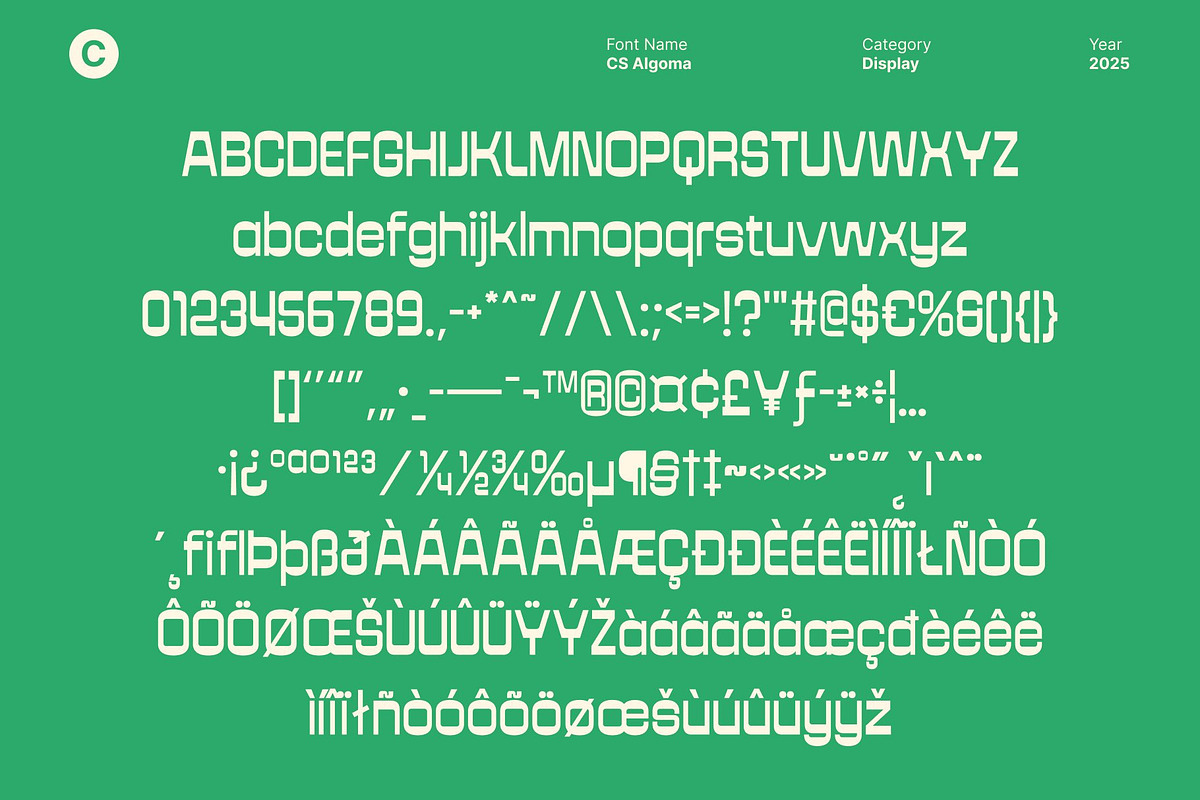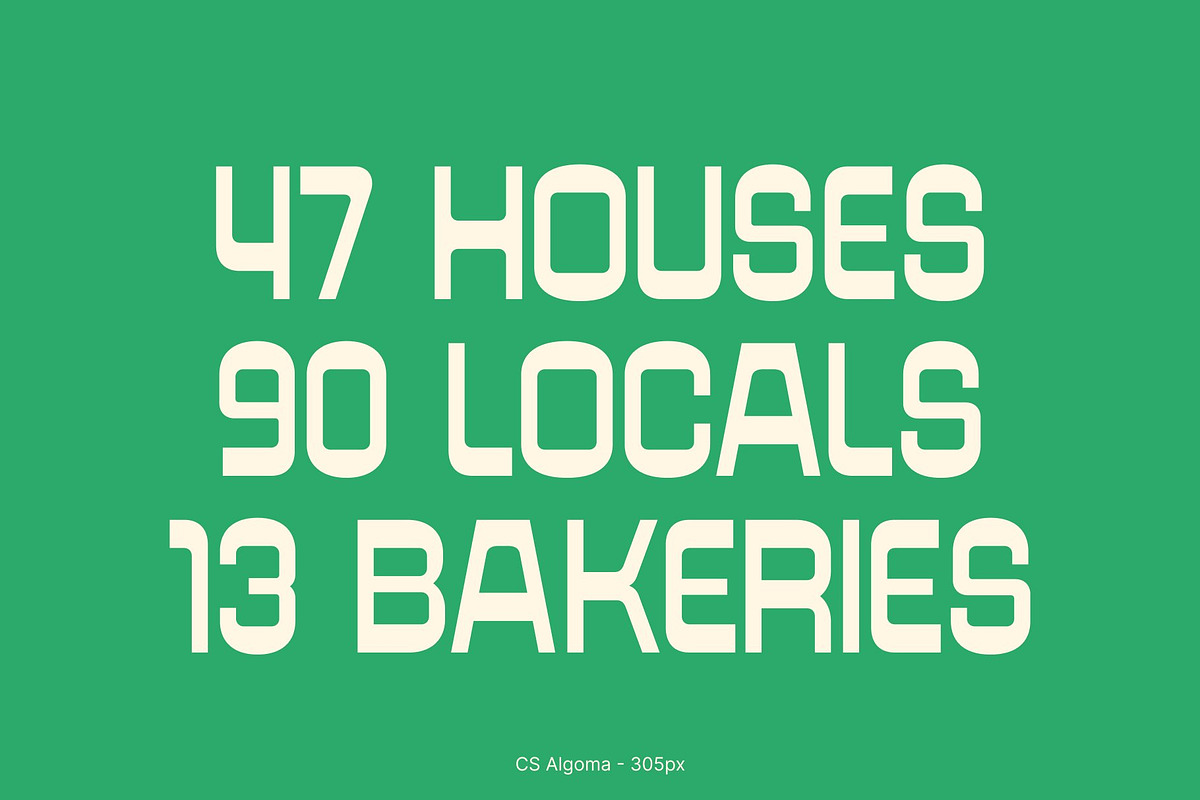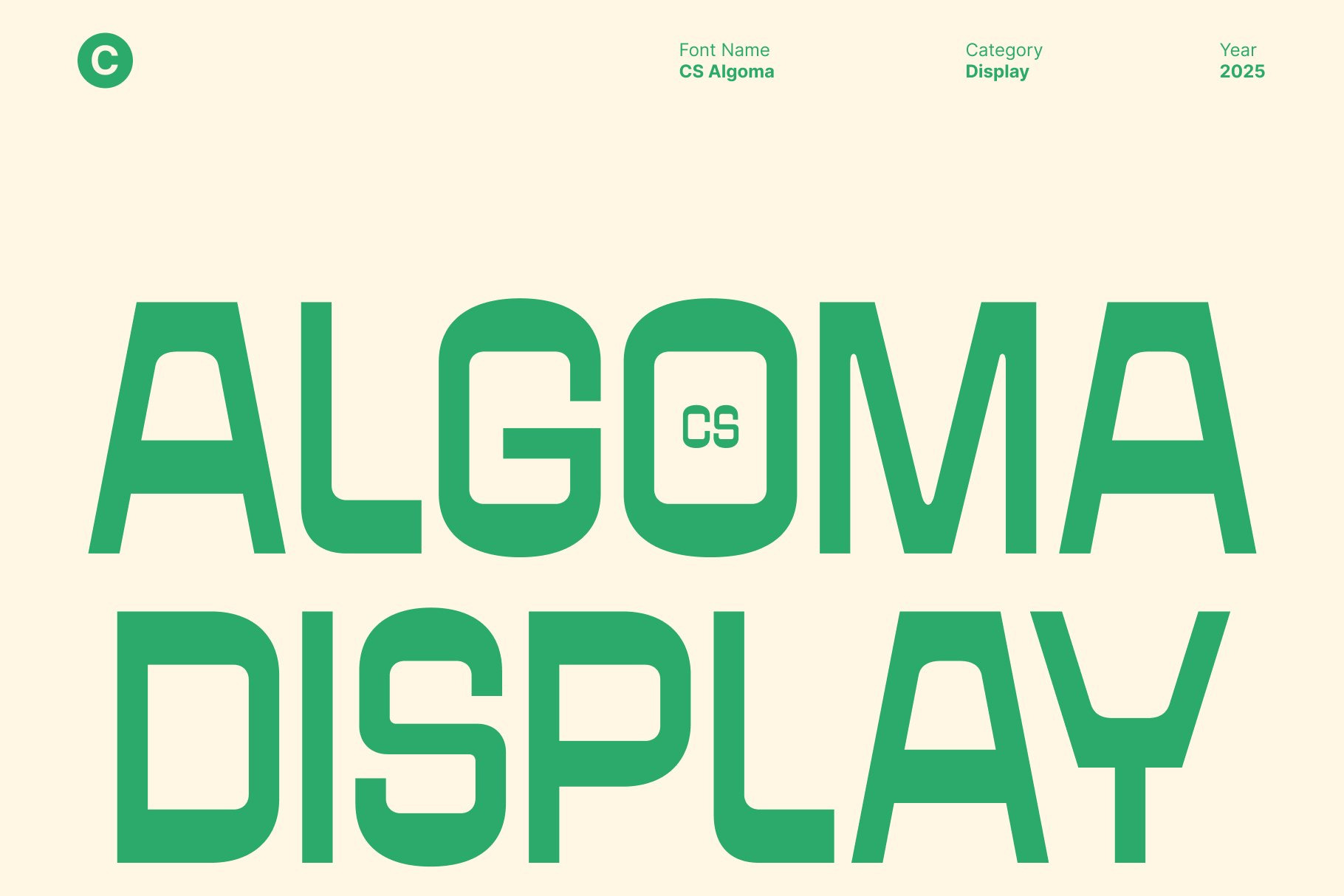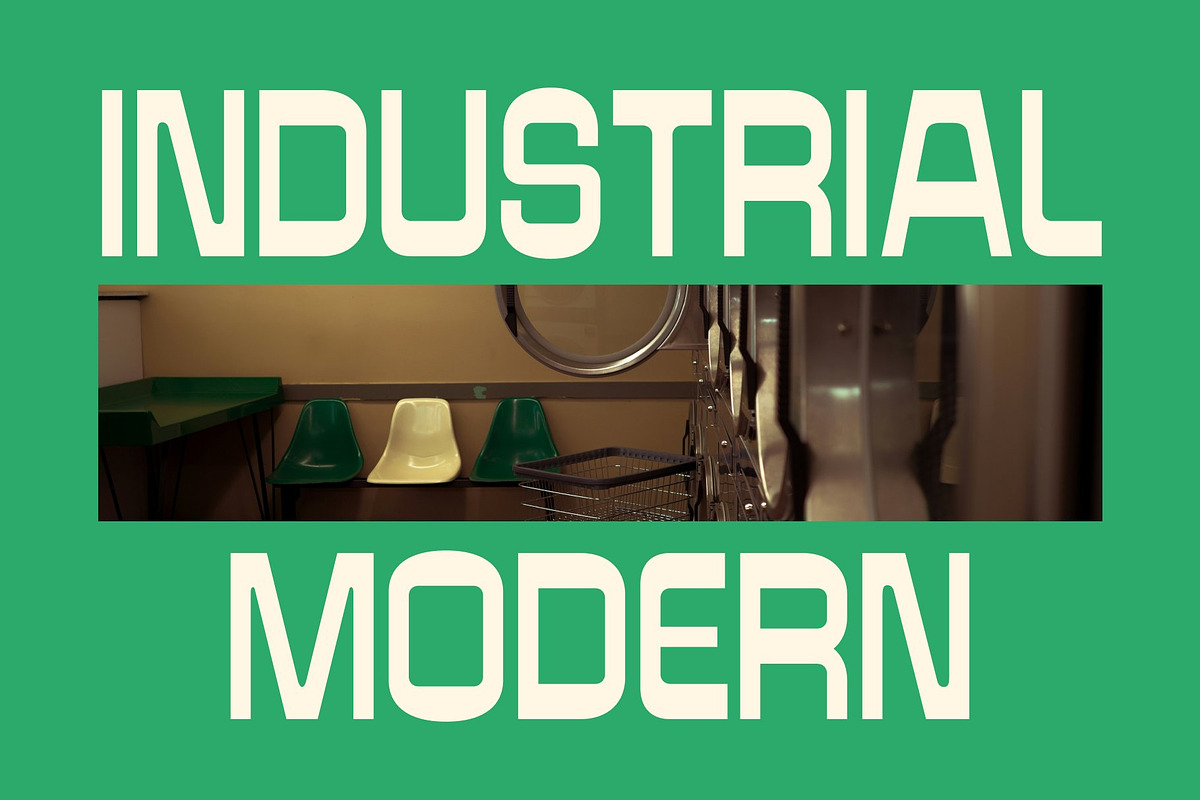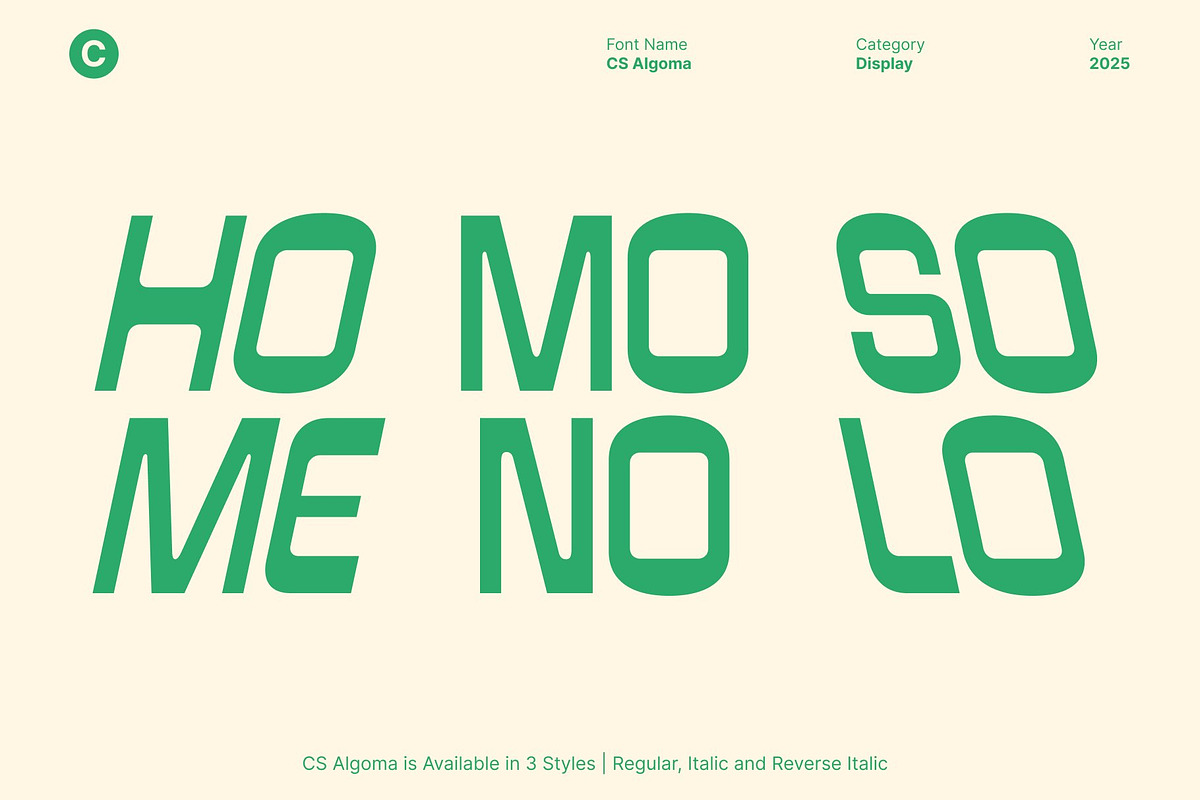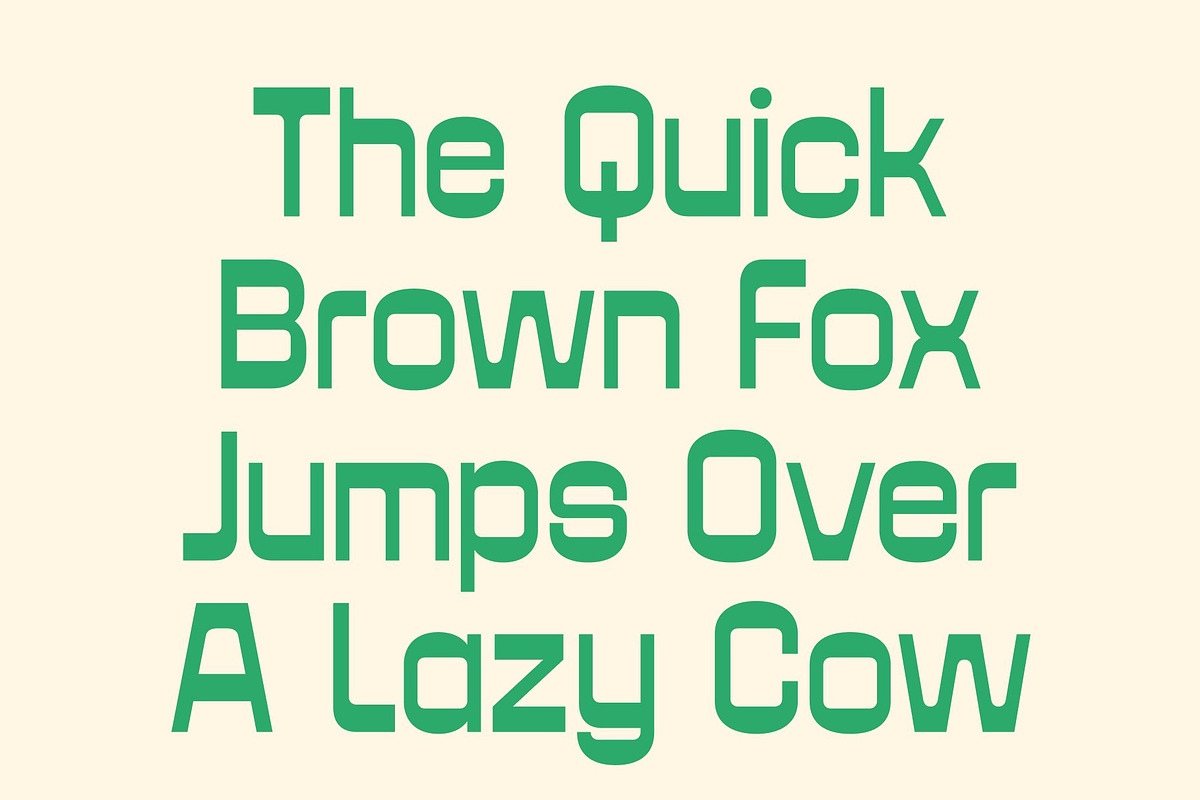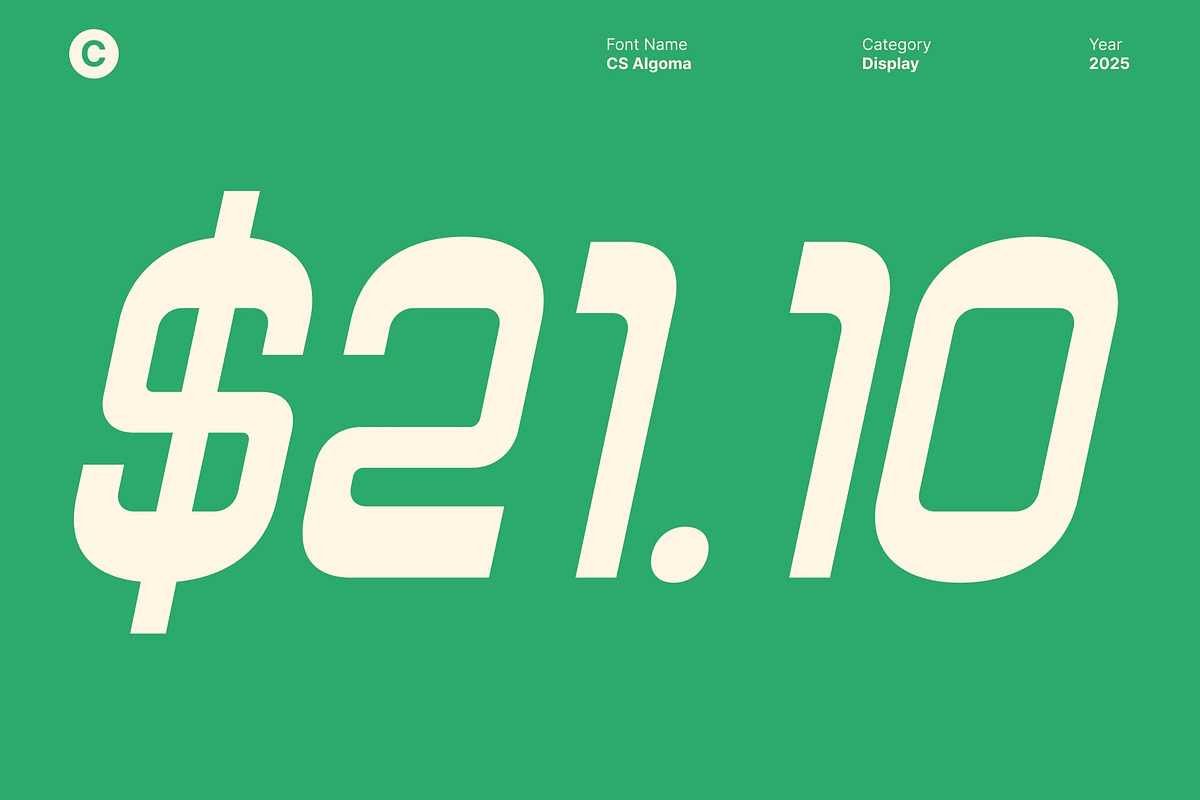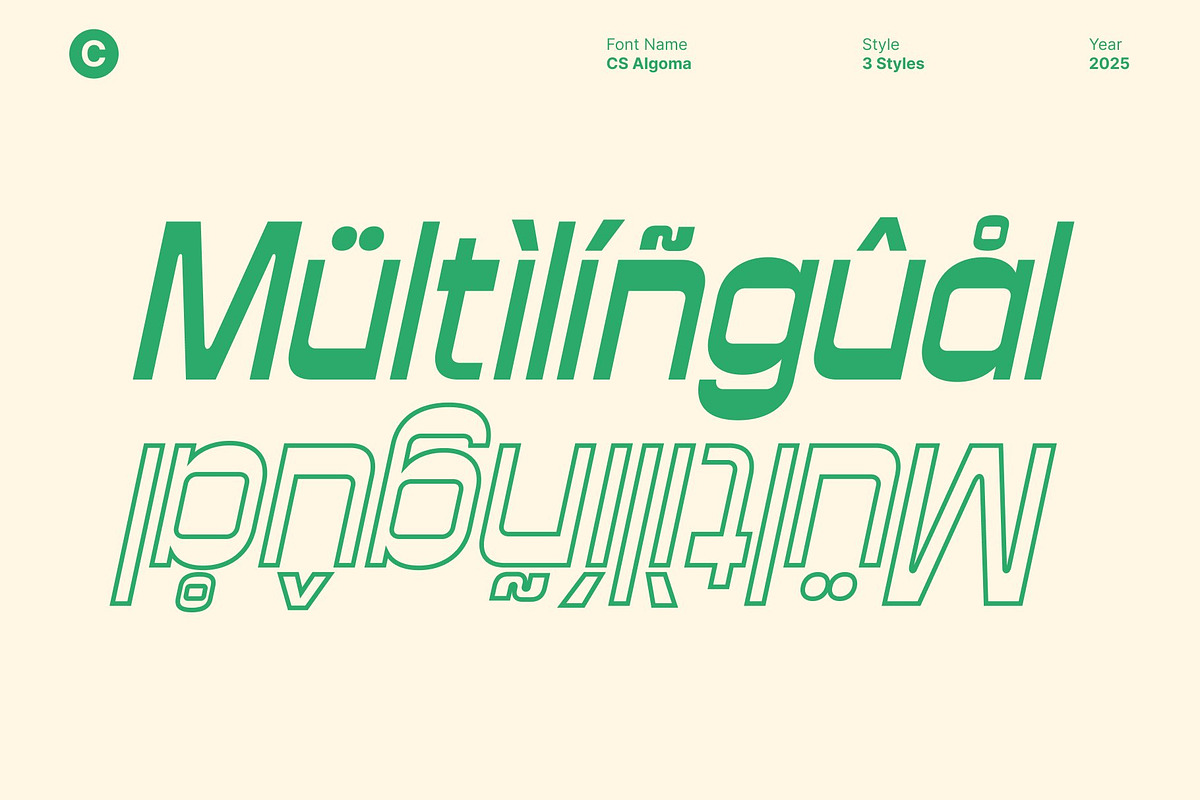
CS Algoma – Reverse Contrast Font
CS Algoma: Retro Energy with Modern Precision
Reverse Contrast Sans Serif with Modular Aesthetics This is a reverse contrast sans serif display font that combines retro charm with contemporary design precision. Featuring bold geometric shapes and distinctive modular forms, this font stands out with its playful yet structured personality. Its unique contrast reversal gives each character a fresh, eye-catching rhythm that feels both nostalgic and forward-thinking.
Retro Inspiration with a Modern Twist Drawing inspiration from mid-century design and classic signage, This font captures the essence of vintage aesthetics while keeping its composition clean and modern. The reverse contrast design flips traditional letterform conventions, creating a visually striking and unconventional look perfect for designers seeking individuality and impact.
Bold and Distinctive Letterforms The strong, structured letterforms of this font exude confidence and creativity. Its balanced proportions and geometric precision make it easy to read, while the reversed contrast adds depth and flair. This blend of clarity and character ensures that every headline, logo, or poster.
Perfect for Distinctive Branding and Promotion Ideal for posters, branding, editorial layouts, and packaging, this font is a font built to make a statement. Its retro-modern fusion makes it a versatile choice for brands that value bold aesthetics, artistic innovation, and visual identity. Whether used for a stylish campaign or a creative print project, this font delivers timeless appeal with a modern pulse.